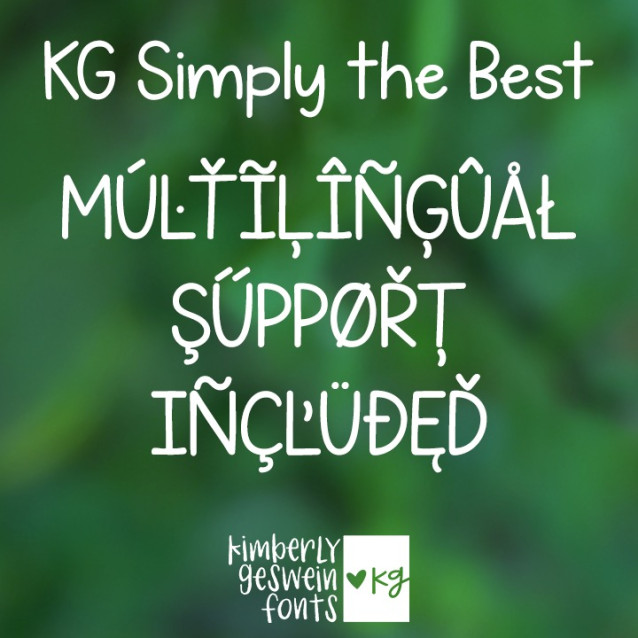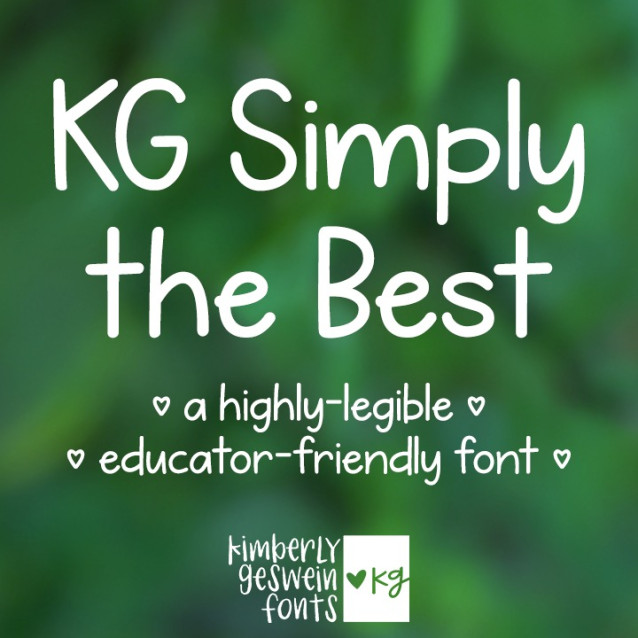
KG Simply The Best Font
KG Simply The Best Font is a neat handwritten font, perfect for teachers and parents alike. You’ll appreciate the simple letter formation and high legibility of this font. Classroom educators can use this font for student-facing work with confidence.